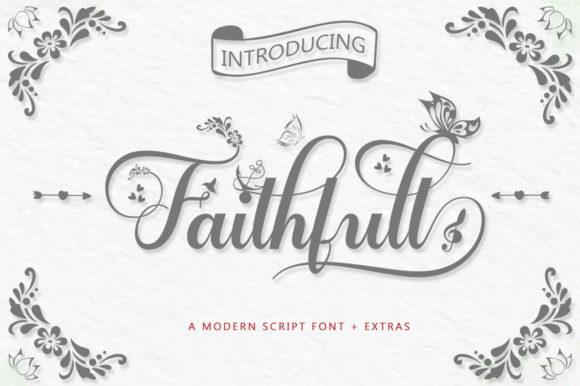
Step into the world of Faithfull Font, a captivating script font that will ignite your creativity and leave you in awe. Its enchanting handwritten style is a stroke of artistic brilliance, perfect for adding a touch of elegance and charm to your projects. Prepare to be captivated by its alluring curves, delicate swashes, and beautiful ligatures that dance harmoniously together, creating visual masterpieces.
Unleash your inner artist and explore the endless possibilities with Faithfull Font. Let your imagination soar as you craft stunning wedding invitations that exude romance and sophistication. Design eye-catching social media posts that capture your audience's attention and leave them craving more. Create beautiful stationary art that reflects your unique style and personality, or use it to add a personal touch to your everyday correspondence. The versatility of Faithfull Font knows no bounds.
With Faithfull Font, you'll have the power to transform your creative visions into reality. Its PUA encoding makes it a breeze to access all the glyphs and swashes, giving you complete control over every intricate detail. Experience the joy of crafting designs that are as unique as your imagination.
Don't miss out on the opportunity to elevate your designs with Faithfull Font. Its enchanting beauty and endless versatility will elevate your projects to new heights, leaving a lasting impression on anyone who encounters them. Embrace the magic of Faithfull Font today and embark on a creative journey that will redefine your artistic expression.